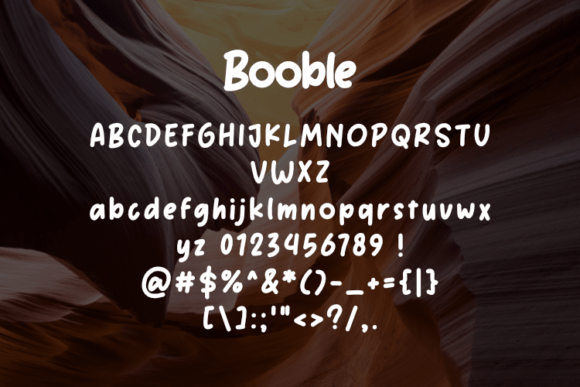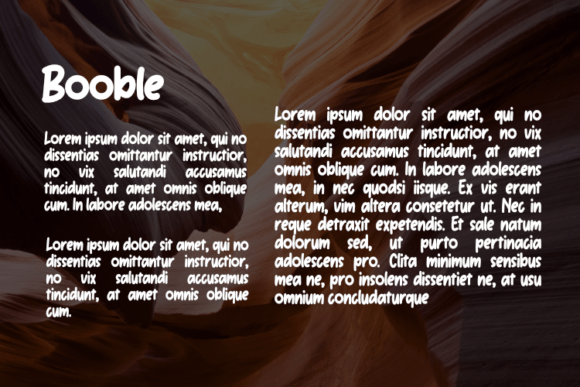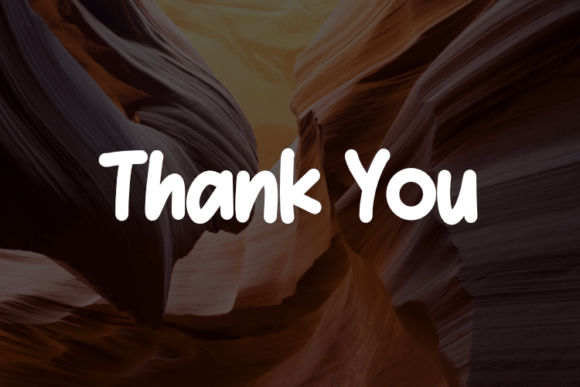
As a designer, have you ever found yourself struggling to choose the perfect font for your project? The blank page stares back at you, and the options seem endless. But what if I told you that the perfect font is just a click away? Introducing the Booble Font, a modern and elegant typeface designed for flexibility and excellent readability across a wide range of media.
Key Features of Booble Font
- Font Family: Booble Font is a unique, hand-drawn font family available in two styles: Regular and Bold.
- Character Set: The Booble Font family includes a wide range of characters, including uppercase and lowercase letters, numbers, and punctuation marks, making it suitable for various design applications.
- Unique Characteristics: The Booble Font features a distinctive, playful style with hand-drawn elements, giving it a personal and creative touch, making it perfect for designs that require a unique and eye-catching look.
Booble Font Review
As a designer, I was excited to dive into the Booble Font and see what it had to offer. Overall, I’d say it’s a solid choice for a playful, whimsical font.
- ✨ Unique character set: The Booble Font has a wide range of unique characters that add to its playful personality.
- ✨ Good legibility: Despite its quirky feel, the font is still easy to read, making it suitable for body text and titles.
- ✨ Versatile: Booble Font can be used for a variety of projects, from children’s books to marketing materials.
- ⚠️ Limited font sizes: At smaller font sizes, the Booble Font can become pixelated and lose its charm.
- ⚠️ Not ideal for formal documents: The font’s playful nature makes it less suitable for formal documents, such as resumes or academic papers.
Overall, I’d give the Booble Font 3.5 out of 5 stars. It’s a fun, engaging font that’s perfect for projects where you want to add a touch of whimsy. However, it may not be the best choice for more serious or formal projects.
Common Use Cases for Booble Font
Booble Font is perfect for:
- Designing playful and fun graphics for social media.
- Creating eye-catching headings and titles for presentations and documents.